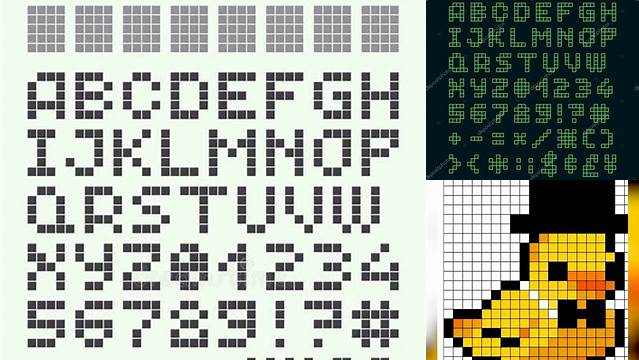
Are you looking to infuse your designs with a retro, tech-inspired aesthetic? Look no further than the pixel grid line font! This unique font style, reminiscent of classic video games and early computer interfaces, is a fantastic way to add character and a touch of nostalgia to your projects. In this comprehensive guide, we'll dive deep into the world of pixel grid line fonts, exploring their origins, uses, and how you can download them for free. So, guys, let's get started and explore the awesome world of pixel fonts!
What is a Pixel Grid Line Font?
Pixel grid line fonts, at their core, are digital typefaces designed to mimic the appearance of characters displayed on low-resolution screens. These fonts are characterized by their distinct, blocky shapes, where each letterform is constructed from individual pixels or small squares. The pixel grid line font style takes this concept a step further by incorporating grid lines within each character, creating a visually striking and technical look. This unique style can evoke a sense of vintage technology, futuristic interfaces, or even abstract art. Think back to the early days of computing and gaming – the fonts used then were inherently pixelated due to the limitations of the display technology. Today, we can intentionally recreate that aesthetic, thanks to the availability of pixel grid line fonts. They are not just fonts; they are a design statement. By using a pixel grid line font, you're not just choosing a typeface; you're choosing to communicate a specific mood and era. The applications are vast and varied, ranging from website design and graphic artwork to branding and video game development. Choosing the right pixel grid line font can dramatically transform the feel of your project, and its distinct, recognizable structure immediately catches the eye. So, if you are looking to add a touch of retro or a high-tech vibe to your next project, consider the impact a pixel grid line font could make.
The Appeal of Pixel Grid Line Fonts
The appeal of pixel grid line fonts lies in their unique ability to blend retro aesthetics with modern design sensibilities. These fonts evoke nostalgia for the early days of computing and gaming, while simultaneously offering a contemporary, tech-inspired edge. Their distinct, blocky structure and visible pixelation create a visual texture that is both eye-catching and memorable. The grid lines within the characters add another layer of visual interest, making them stand out from more traditional typefaces. Think about the visual language of 8-bit and 16-bit video games – the pixelated characters and interfaces are instantly recognizable and evoke a powerful sense of nostalgia for many people. Pixel grid line fonts tap into this same feeling, allowing designers to connect with audiences on an emotional level. But the appeal extends beyond mere nostalgia. In a world saturated with smooth, sleek designs, pixel grid line fonts offer a refreshing alternative. They provide a sense of authenticity and raw digital character, which can be particularly effective in projects that aim to convey a sense of innovation, technology, or even rebellion against the design norm. The versatility of pixel grid line fonts is another key factor in their appeal. They can be used in a wide range of applications, from website headers and logos to video game interfaces and graphic artwork. Whether you're designing a retro-themed poster, a futuristic website, or a quirky mobile game, a pixel grid line font can help you achieve the desired look and feel. They are bold, unconventional, and have a unique ability to capture attention.
Where to Use Pixel Grid Line Fonts
The versatility of pixel grid line fonts makes them suitable for a wide array of projects. These fonts aren't just for retro-themed designs; their unique aesthetic can enhance various modern applications. Here are some key areas where pixel grid line fonts shine: Video Games: This is perhaps the most obvious application. Pixel fonts are a natural fit for games, especially those aiming for a retro or 8-bit aesthetic. They can be used for in-game text, menus, and even the game title itself, instantly transporting players to the golden age of gaming. Website Design: Incorporating pixel grid line fonts into your website can give it a unique, tech-inspired feel. They are particularly effective for headers, navigation menus, and call-to-action buttons. These fonts can help your website stand out and convey a sense of innovation and modernity. Graphic Design: Pixel fonts are a fantastic choice for posters, flyers, and other graphic design projects. They can add a bold, eye-catching element to your designs, particularly when used for headlines or key messaging. Their unique texture and visual appeal make them ideal for creating impactful visuals. Logos and Branding: If your brand aims to project a tech-savvy or retro image, a pixel grid line font can be a powerful tool. Using this style in your logo or brand materials can create a memorable and distinctive visual identity. The bold, geometric shapes of pixel fonts can make your brand instantly recognizable. Mobile Apps: Pixel fonts can enhance the user interface of mobile apps, especially those with a minimalist or retro design. They can provide a clean, legible, and visually interesting text style that complements the overall app aesthetic. Consider the overall theme and message you want to convey when using pixel grid line fonts. They are powerful stylistic tools, but they work best when they align with the project's core identity.